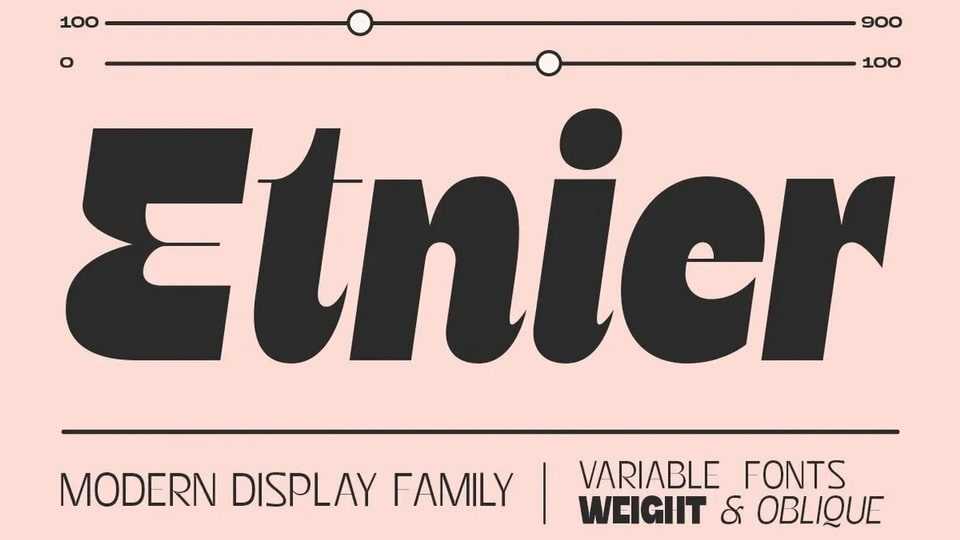
Download Etnier font, a modern variable typeface. Essentially, it’s a sans-serif font with a sturdy and squared appearance, ensuring excellent legibility